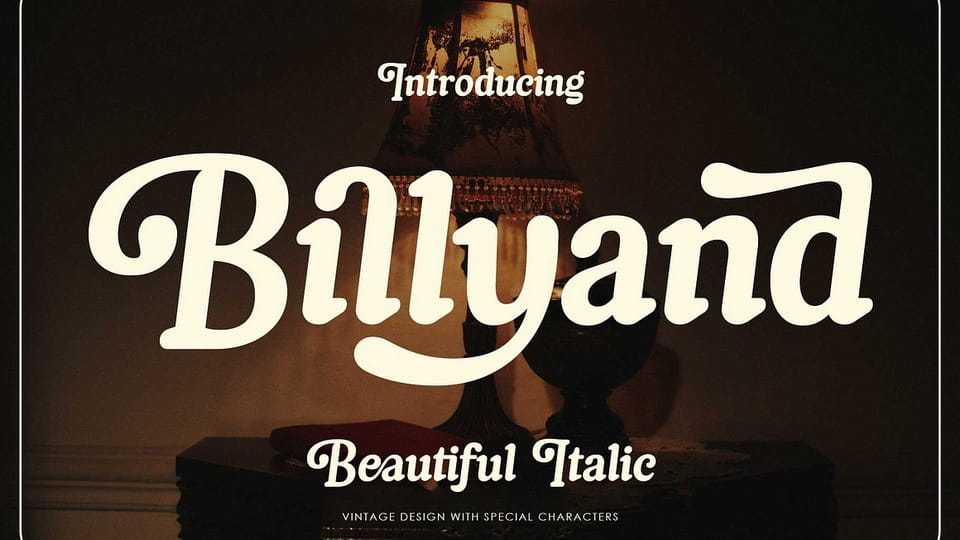
Download Billyand font, a refined vintage italic typeface that fuses classic italic lettering with bold character and decorative flair, delivering a look that feels both elegant and confident.